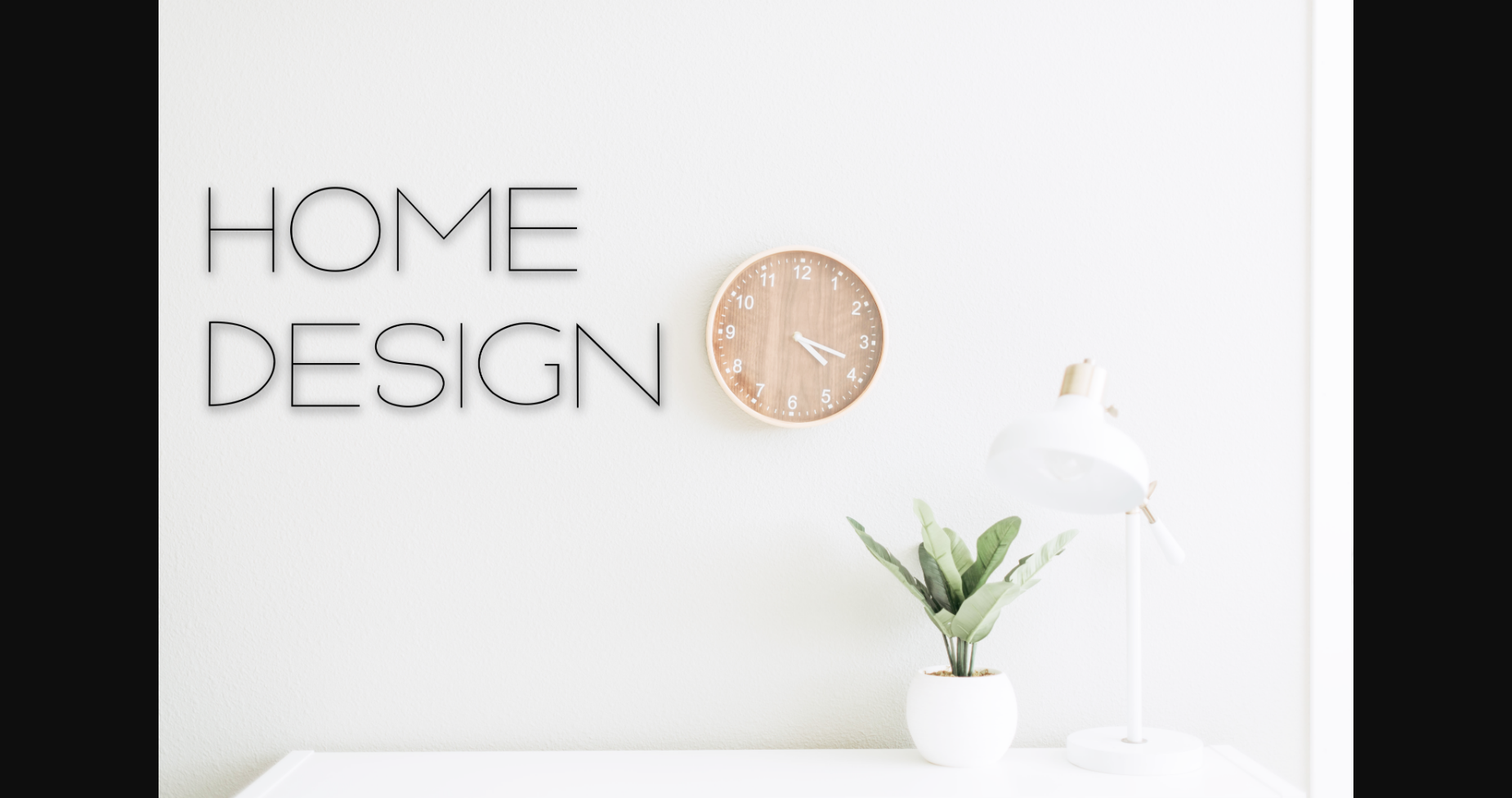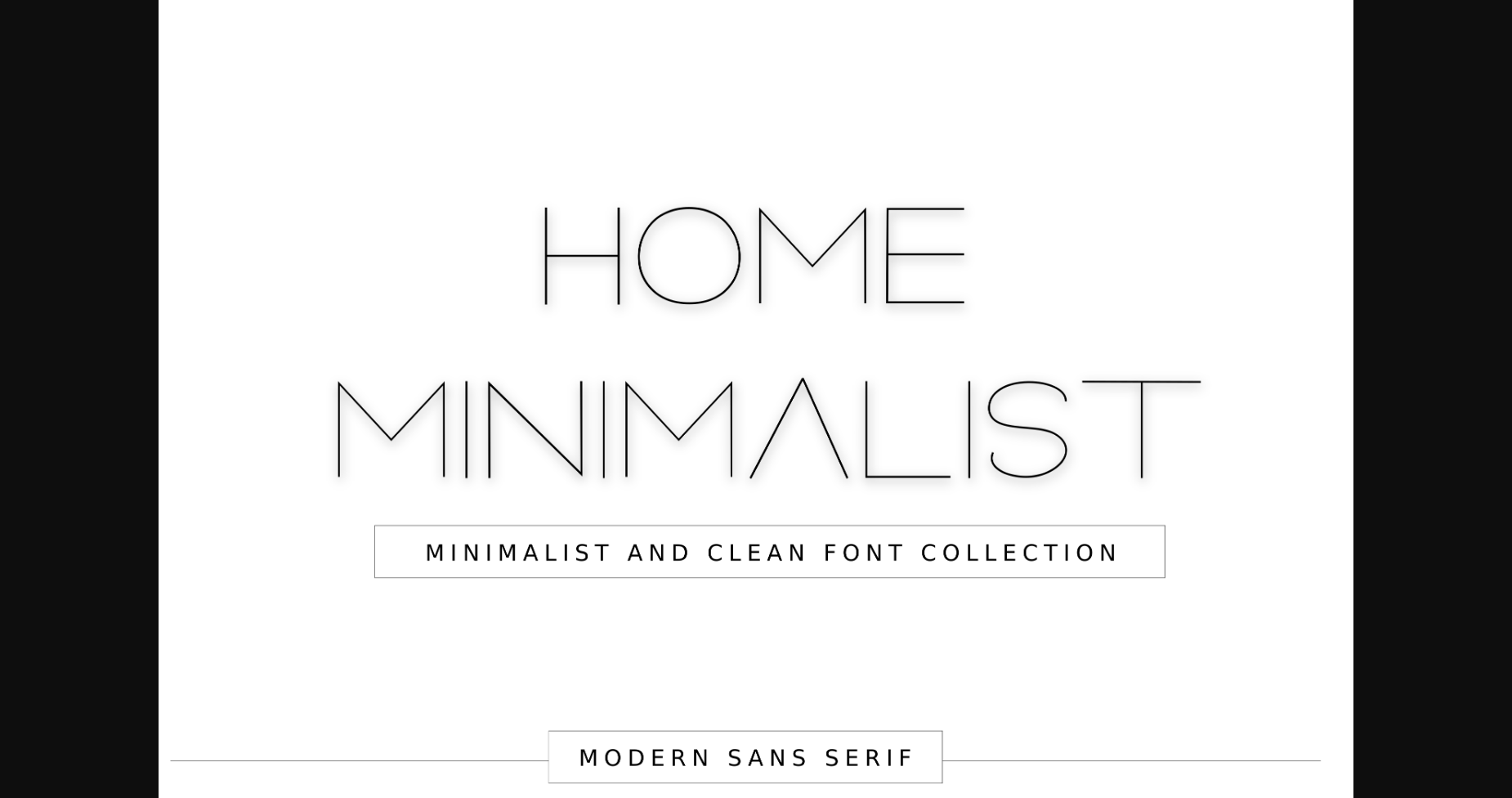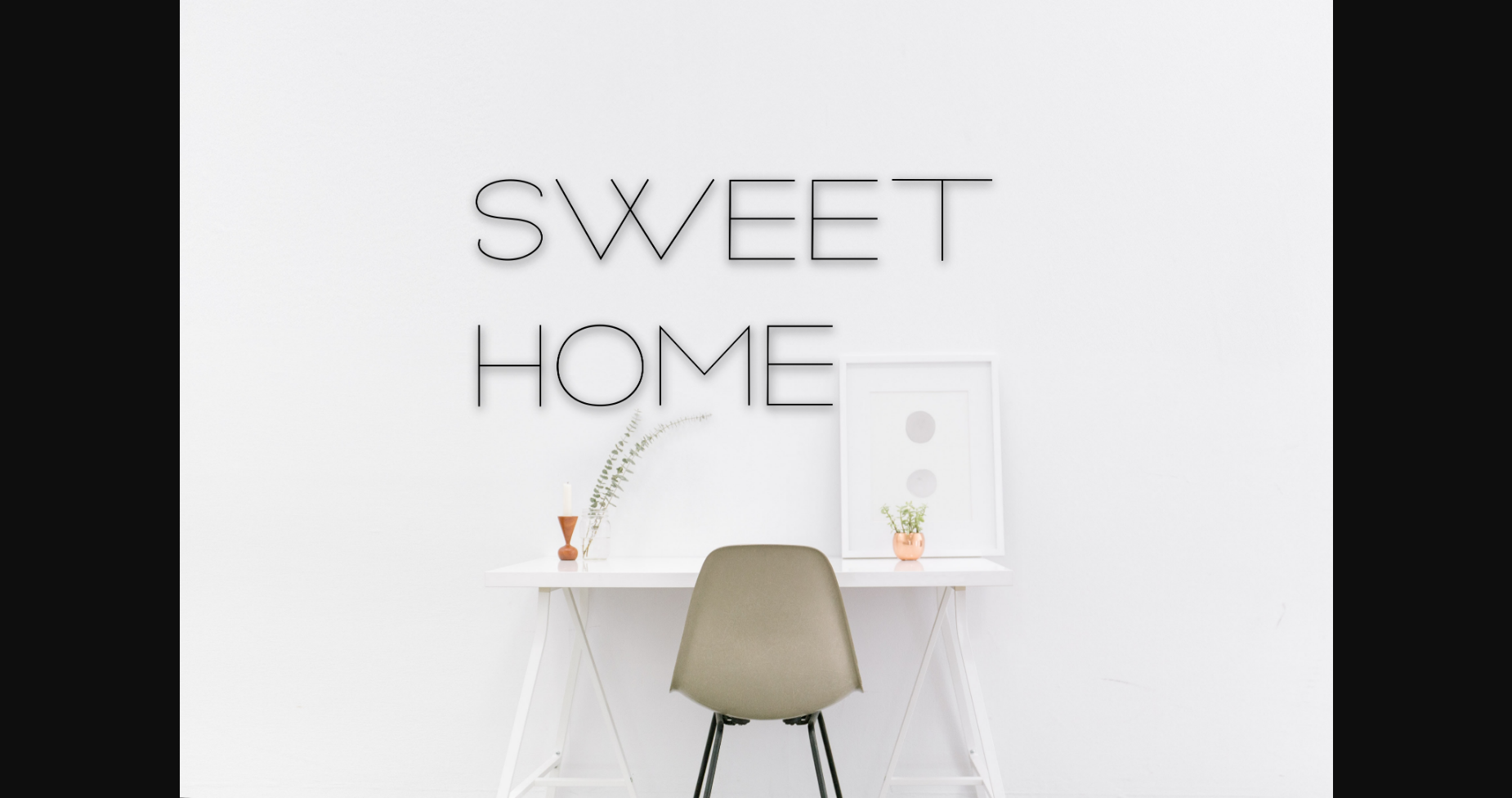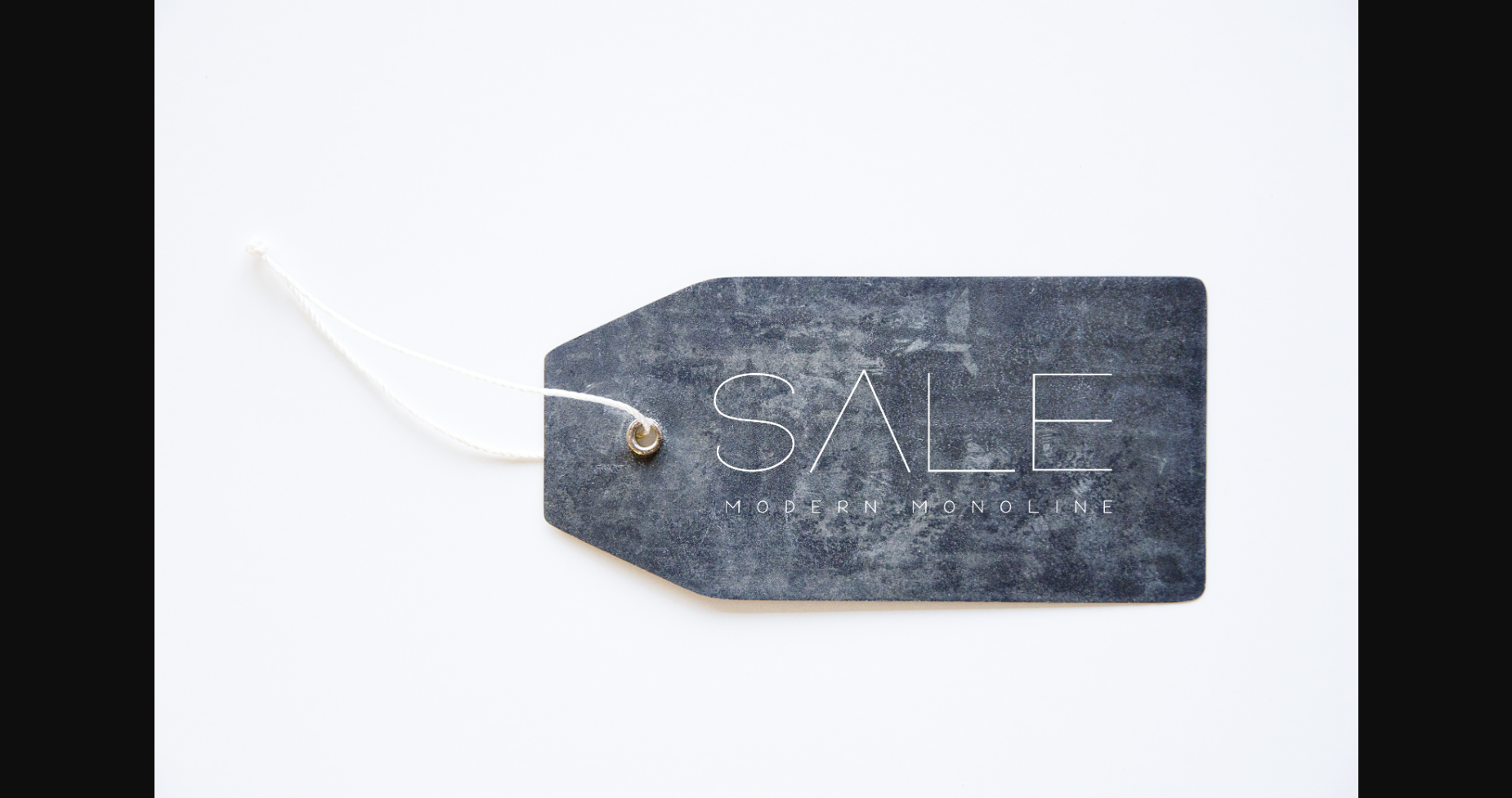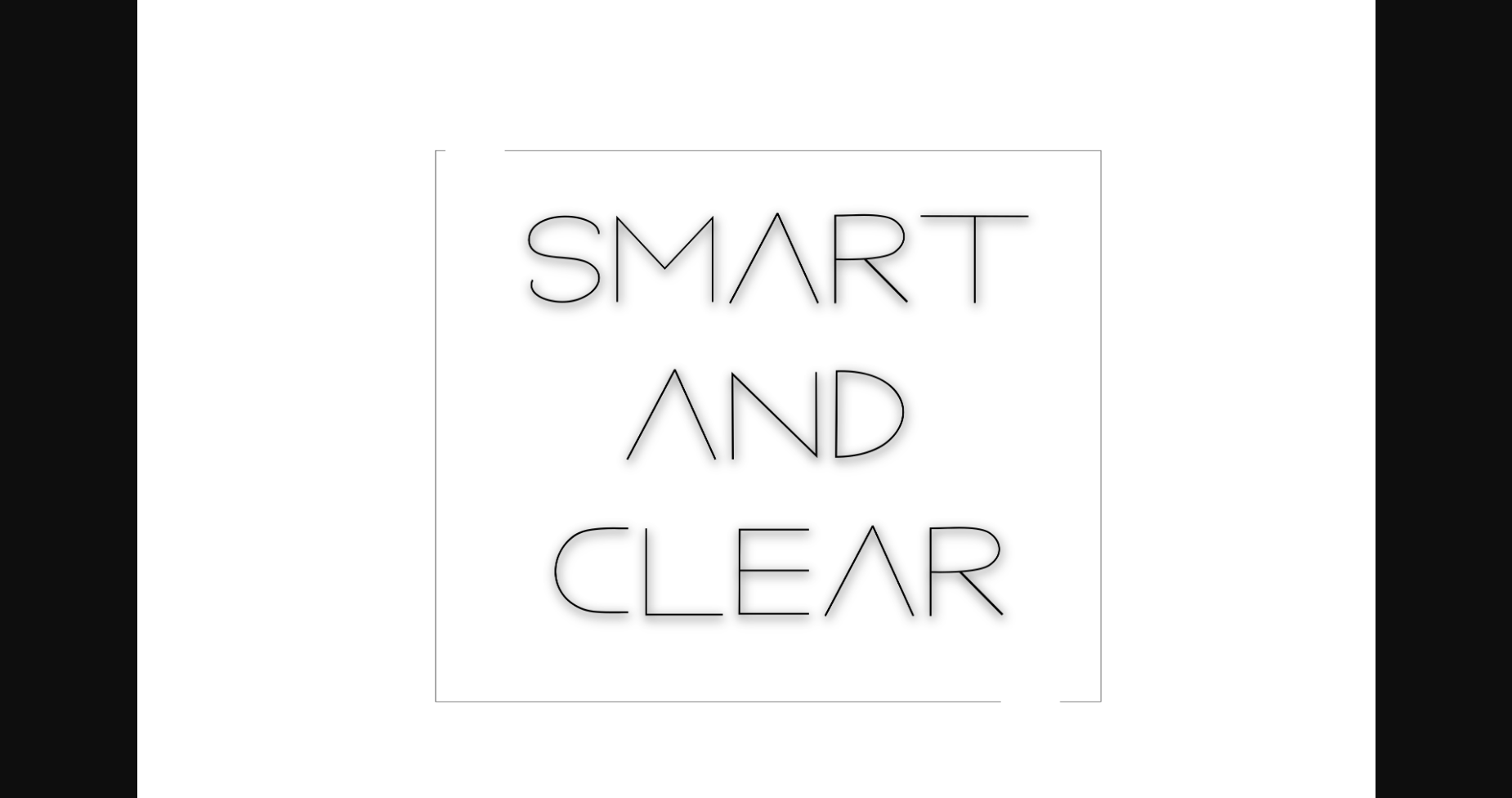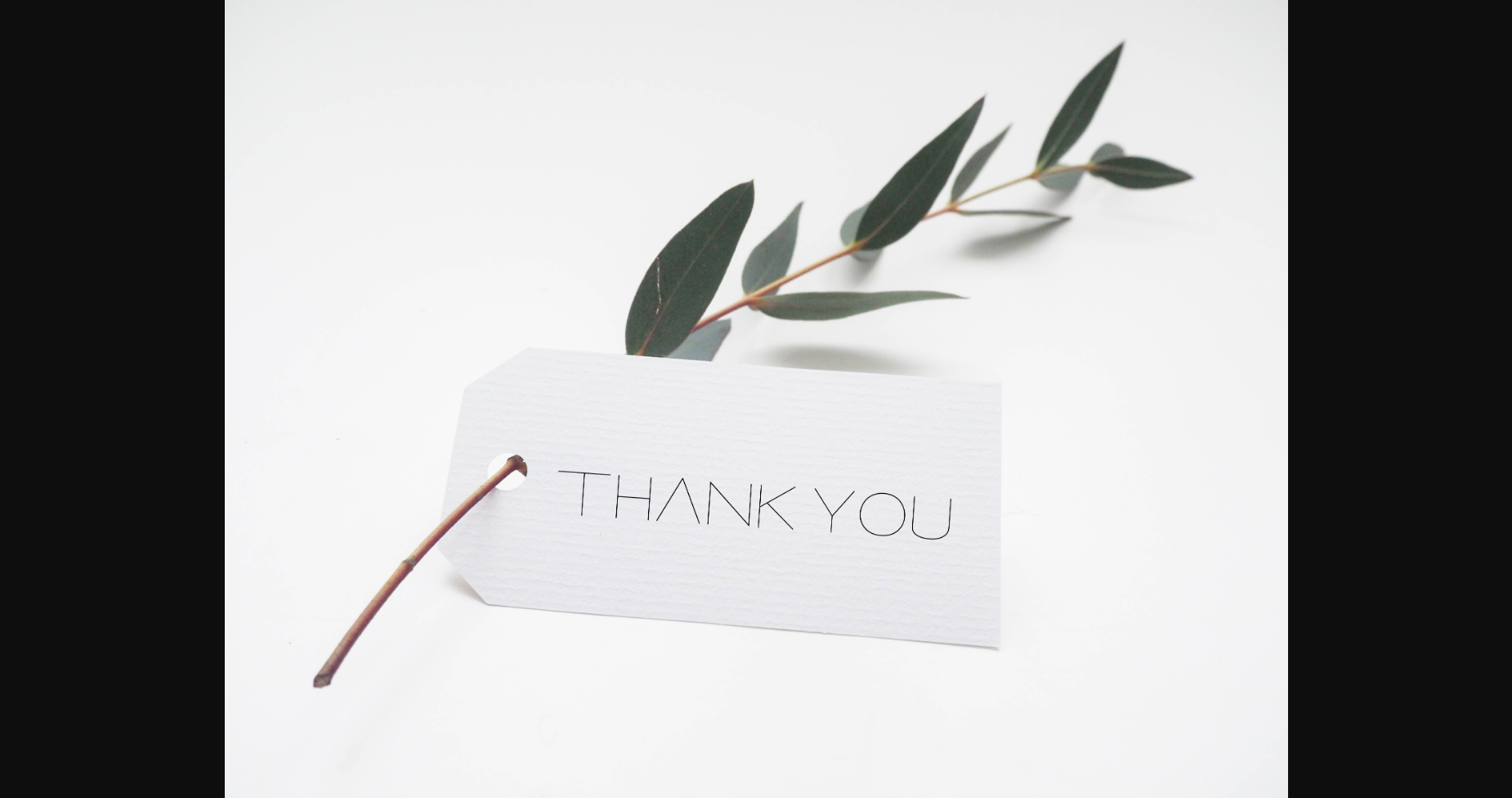
HomeSans Serif FontsHome Minimalist Font Sans Serif Fonts Home Minimalist Font FacebookXPinterestWhatsApp 1 of 8 ... Home Minimalist Font Poster 2... Home Minimalist Font Poster 3... Home Minimalist Font Poster 4... Home Minimalist Font Poster 5... Home Minimalist Font Poster 6... Home Minimalist Font Poster 7... Home Minimalist Font Poster 8... About Home Minimalist Font Home Minimalist is a simple and thin lettered sans serif font. It can easily be matched to an incredibly large set of projects, so add it to your creative ideas and notice how it makes them stand out! DOWNLOAD NOW People also explored Destinee Elizabeth Font Cat Monogram Font Chonkys Font Halloween Skeleton Font Septhia Font Elleanor Font Flaters Font Lialisa Font Klapa Muda Font 383 0 TagsHome Minimalist Font Previous articleFjord FontNext articleArthos Font LEAVE A REPLY Cancel reply Comment: Please enter your comment! Name:* Please enter your name here Email:* You have entered an incorrect email address! Please enter your email address here Website: Save my name, email, and website in this browser for the next time I comment. Personal Use Free Shelly Personal Use Free Read more about this font Rothwell Personal Use Free Read more about this font Equalizer Script Personal Use Free Read more about this font Millea Personal Use Free Read more about this font BLOG How to Install and Use Fonts on Windows, macOS, and Web Projects How to Install and Use Fonts on Windows, macOS, and Web Projects Fonts are a crucial part of design and branding. Whether you’re designing a... Transform Your Website: Elevate Your Typography with 7 Best Web Font Generators To increase your work productivity, choose the most readable fonts. Elegant Wedding Invitation Fonts – Handwritten & Script Fonts